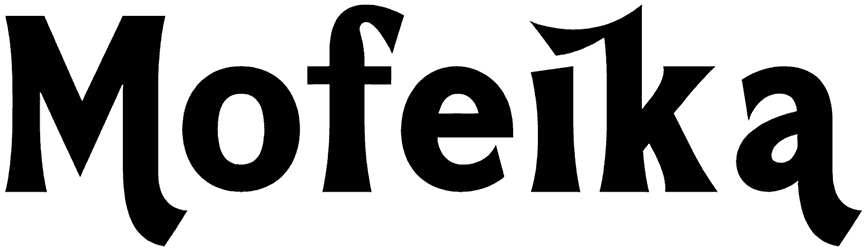
Mofeika Font
Want to see how easy it can be to develop a warm and kind personality for your designs to impress the audience from the start? Why leave it to the imagination when you can ask Mofeika to do that for you now?
This book cover font is how you can elevate your art with a cartoon style in all your tropical designs, farmers market posters, toy store signs, or anywhere else you need a playful font to set the right mood.